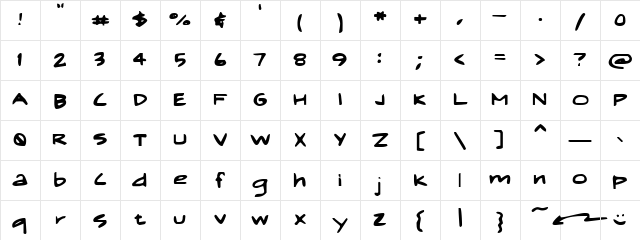
Maria Hand
Style: Hand
Foundry: Font Garden
Designer: Ellinor Rapp
Maria Family
Maria Hand
Design Context for Maria
Maria flows with the natural rhythm of handwritten lettering, making it ideal for designs that call for warmth and personal expression.
Font Pairing: Combine Maria with a simple geometric sans for maximum contrast - the tension between flowing curves and clean structure is a classic typographic pairing.
Pro Tip: Use Maria for short runs of text - names, titles, or taglines. Extended body copy in script faces tires the eye quickly.